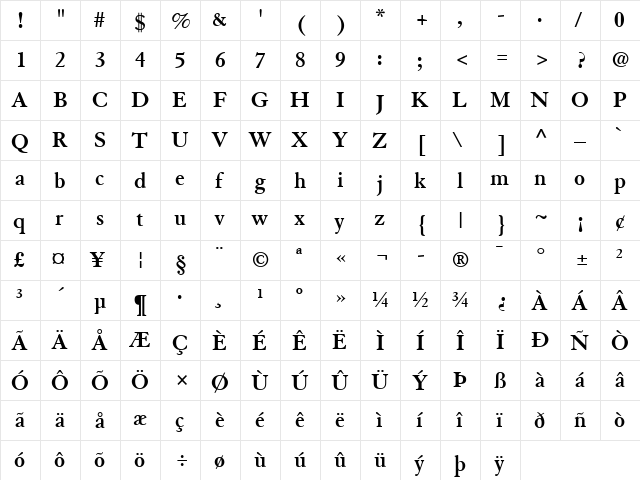
Granjon LT Bold
Design Context for Granjon LT Typeface
Granjon LT takes a measured approach to typography — its balanced proportions and neutral character make it a reliable workhorse for both digital and print work. Its bold stroke weight gives it real presence on the page.
Pro Tip: Pair Granjon LT with a font of contrasting weight or personality to build a more expressive typographic hierarchy.